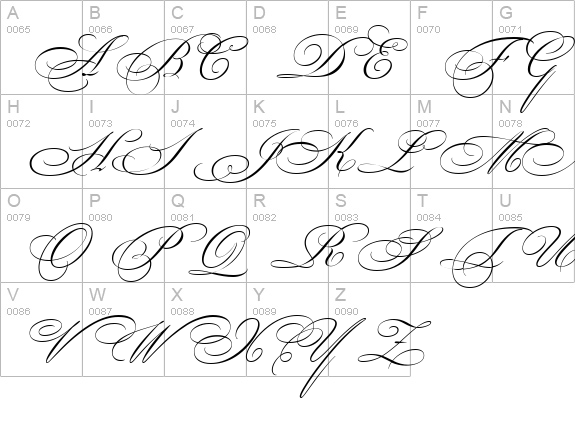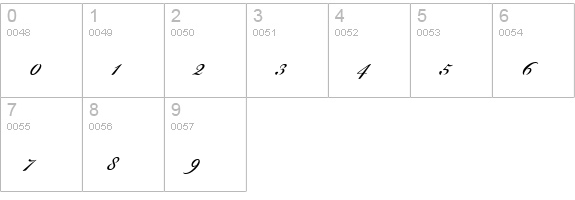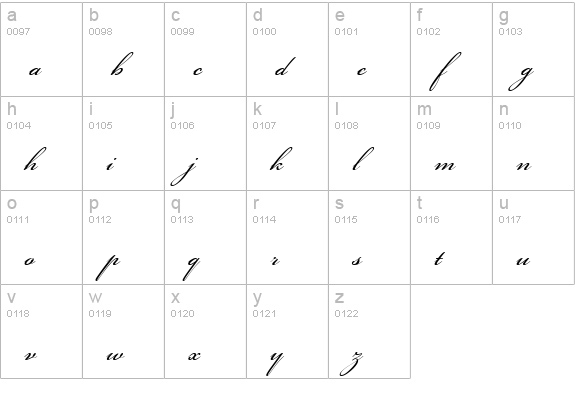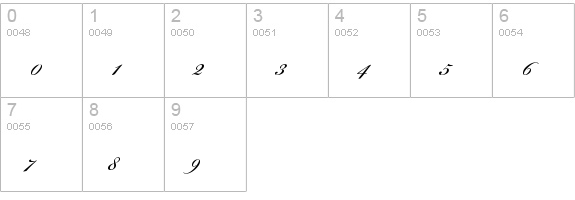
Bickham Script Two font is a classic and elegant script typeface that exudes sophistication and charm. Its flowing strokes and graceful curves give any text a touch of refinement and luxury. The script is perfect for formal occasions, invitations, branding, and any design project that requires a touch of elegance. What makes Bickham Script Two font even more appealing is that it is available for free download at FontsMarket.com. This means that you can easily access this beautiful typeface without any cost, making it a valuable addition to your font library. Don't miss the opportunity to enhance your designs with the timeless beauty of Bickham Script Two font, now just a click away at FontsMarket.com.